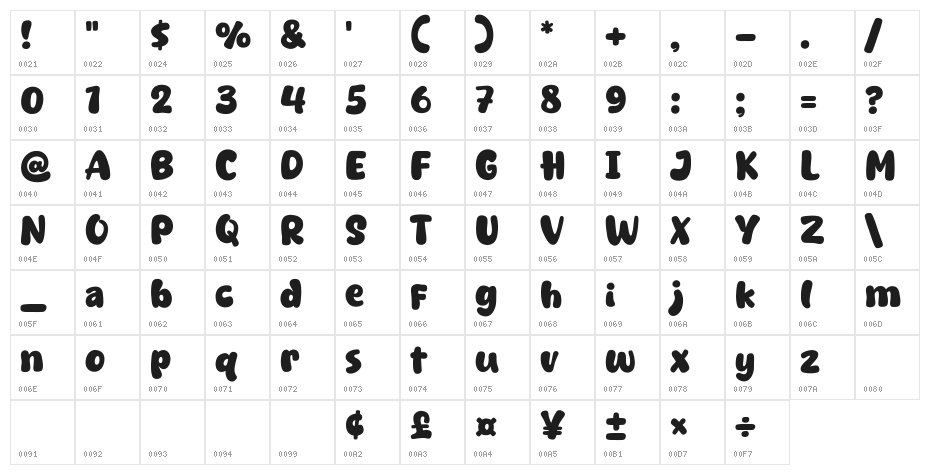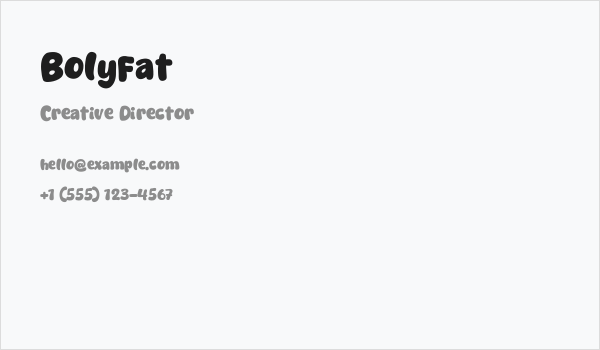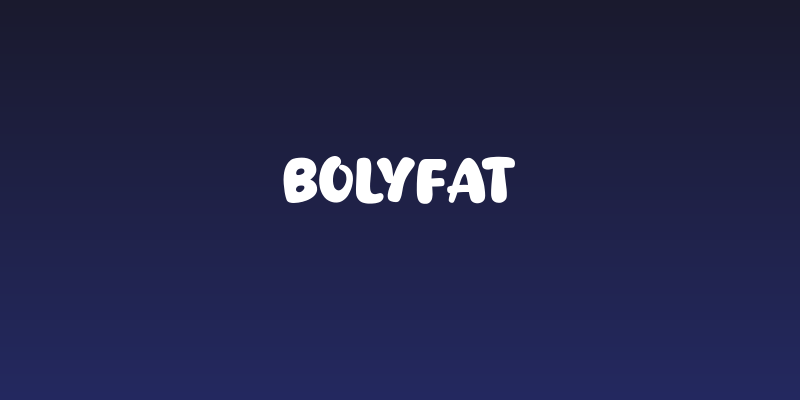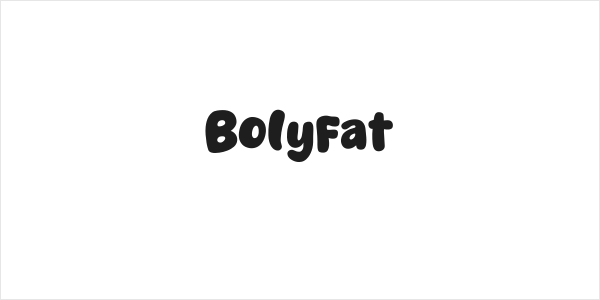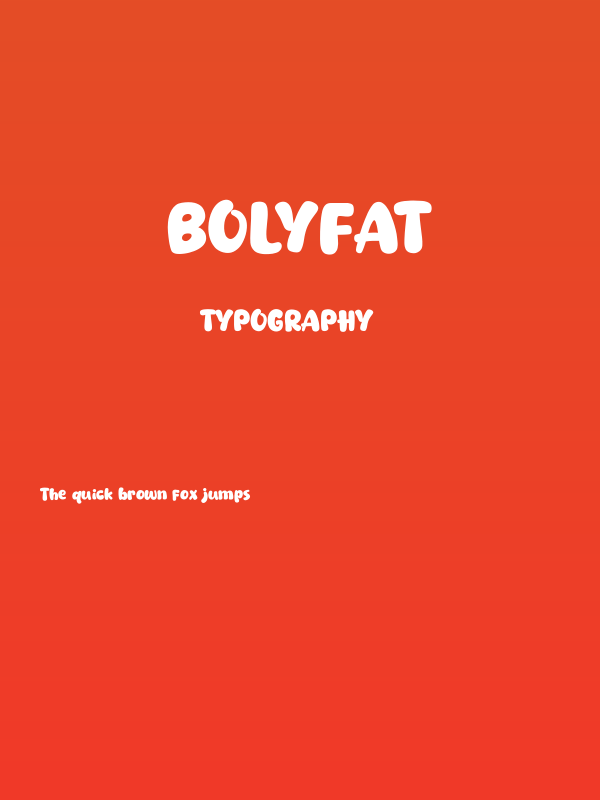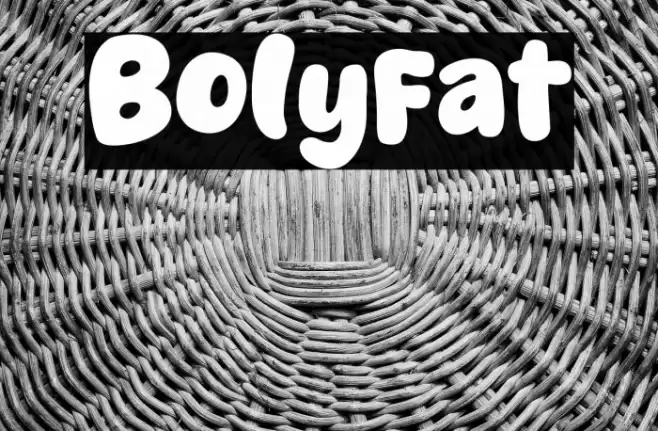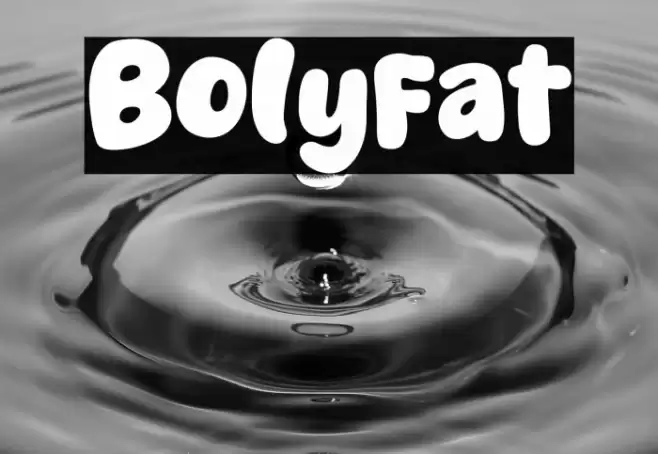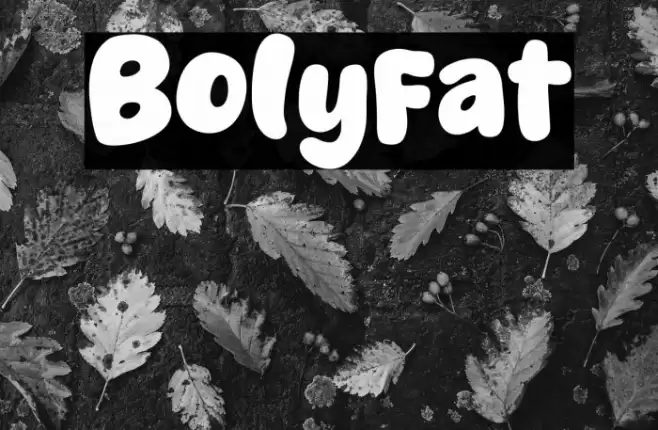
Bolyfat Font
Bolyfat Description
This playful and bold font features thick, rounded characters that convey a sense of fun and approachability. The letters are uniformly wide, with a consistent stroke weight that gives the font a cohesive and solid appearance. The rounded edges and lack of sharp angles contribute to its friendly and informal style, making it ideal for designs that aim to be inviting and engaging. The numbers and special characters maintain the same playful aesthetic, ensuring a harmonious look across all text elements. This font is particularly suitable for children's materials, playful branding, and any project that benefits from a lively and cheerful typeface.
| Proposed Projects | Ideal for children's books, playful branding, posters, and casual invitations. |